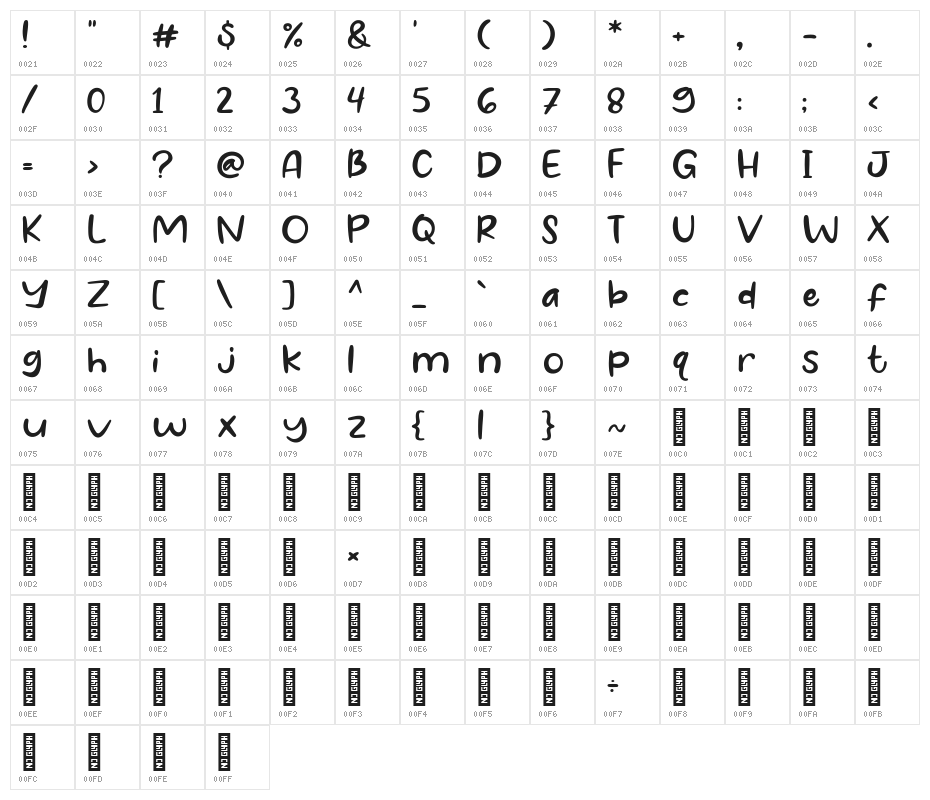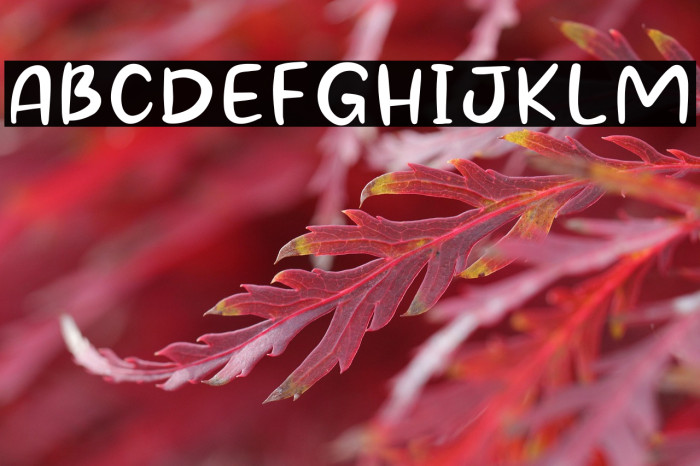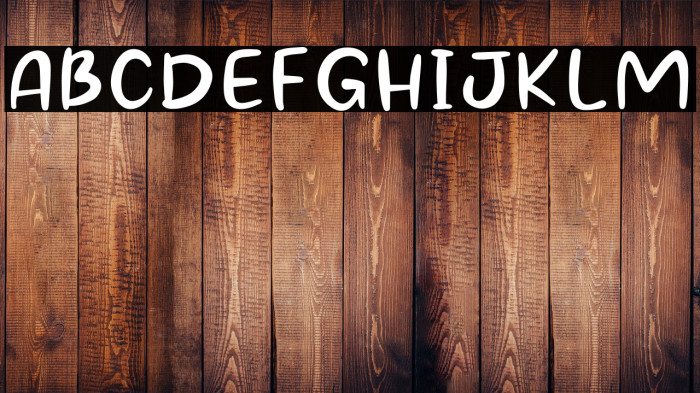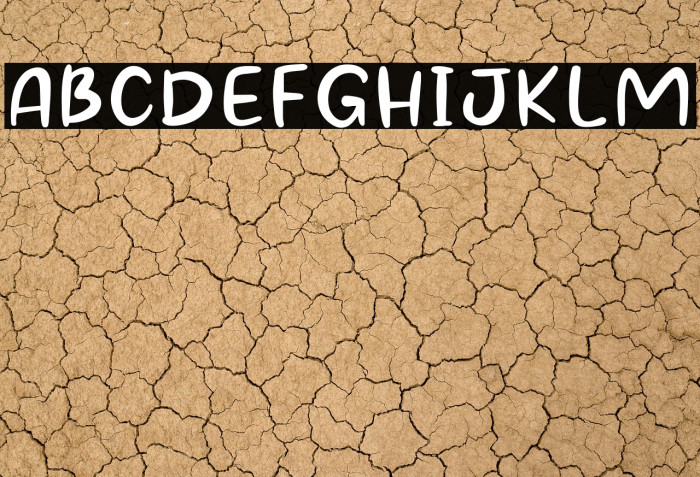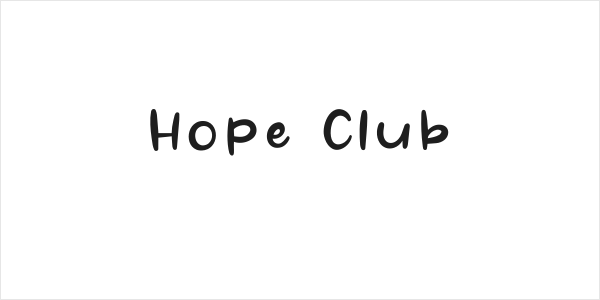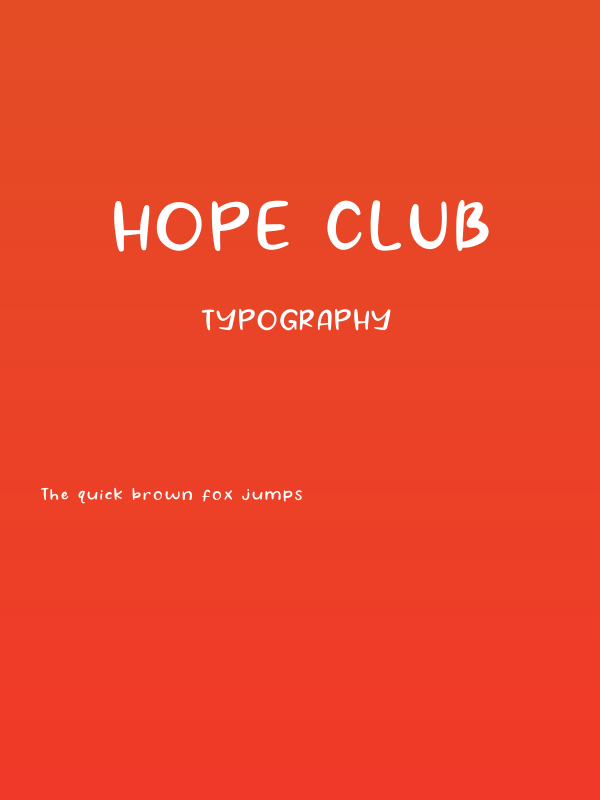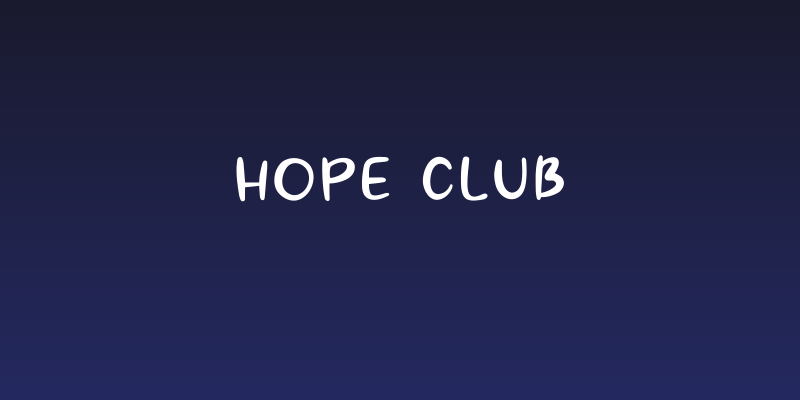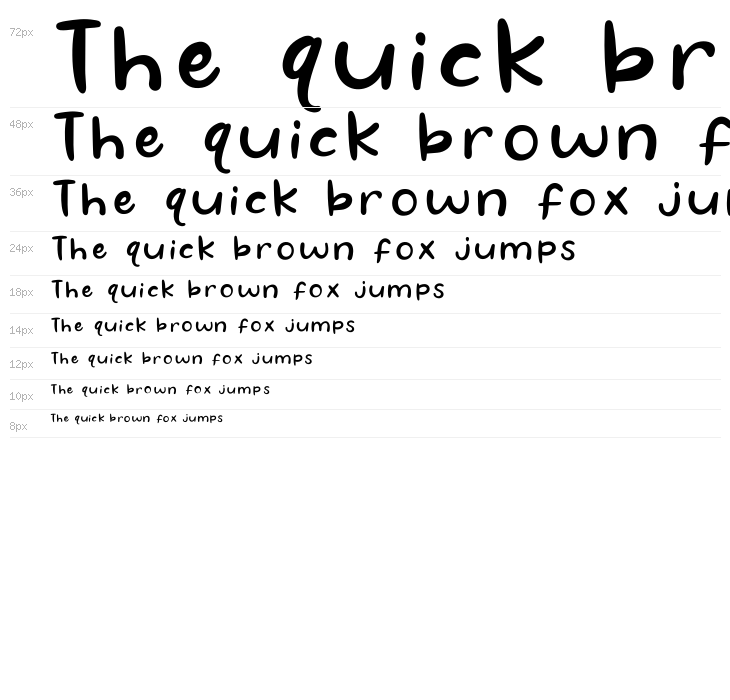
Hope Club Font
Hope Club Description
This playful and casual font features rounded, slightly irregular letterforms that give it a friendly and approachable feel. The strokes are consistent in width, contributing to a uniform appearance, while the slight tilt and variation in character shapes add a touch of whimsy. The font includes both uppercase and lowercase letters, numerals, and a variety of special characters, making it versatile for different uses. Its handwritten style is reminiscent of casual note-taking or doodling, ideal for projects that require a personal touch.
| Overall Style | Casual |
| Use Case | Headlines, Informal text, Creative projects |
| Proposed Projects | Ideal for children's books, greeting cards, casual branding, and playful social media graphics. |